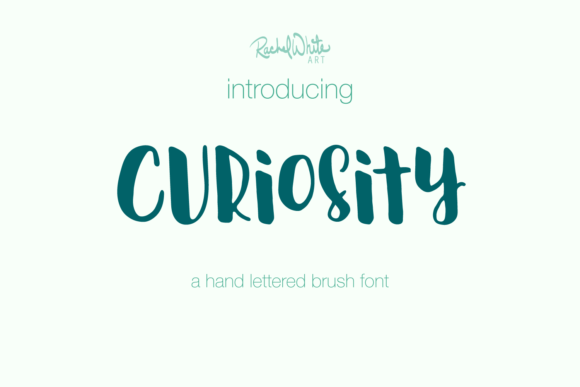
Dive into a world of whimsical creativity with Curiosity Font, an enchanting script font that captures the magic of handwritten artistry. This delightful font, lovingly crafted by rachelwhiteart, exudes an irresistible charm that will captivate your senses and ignite your imagination.
With its graceful curves and enchanting strokes, Curiosity Font dances across the screen, evoking a sense of wonder and delight. Its playful nature is perfect for adding a touch of whimsy to your designs, while its elegant flourishes lend an air of sophistication that will elevate your projects to new heights.
Whether you're a seasoned designer or just starting out, Curiosity Font is an absolute joy to use. It flows effortlessly from one letter to the next, creating beautiful, cohesive text that will make your words dance off the page. Its versatility knows no bounds, making it ideal for a wide range of projects, from wedding invitations and greeting cards to social media posts and branding materials.
Step into a world of imagination and creativity with Curiosity Font. Let your words take flight and your designs soar to new heights. Discover the endless possibilities that await you with this exquisite font, and immerse yourself in the beauty of handwritten artistry.